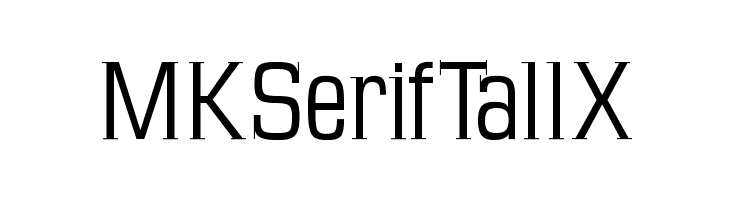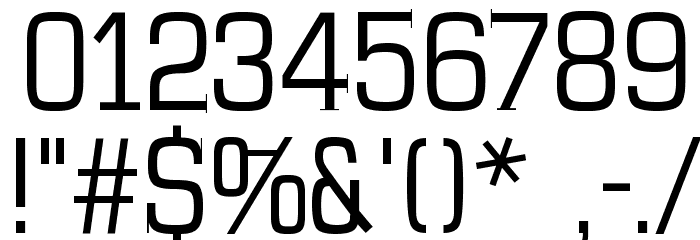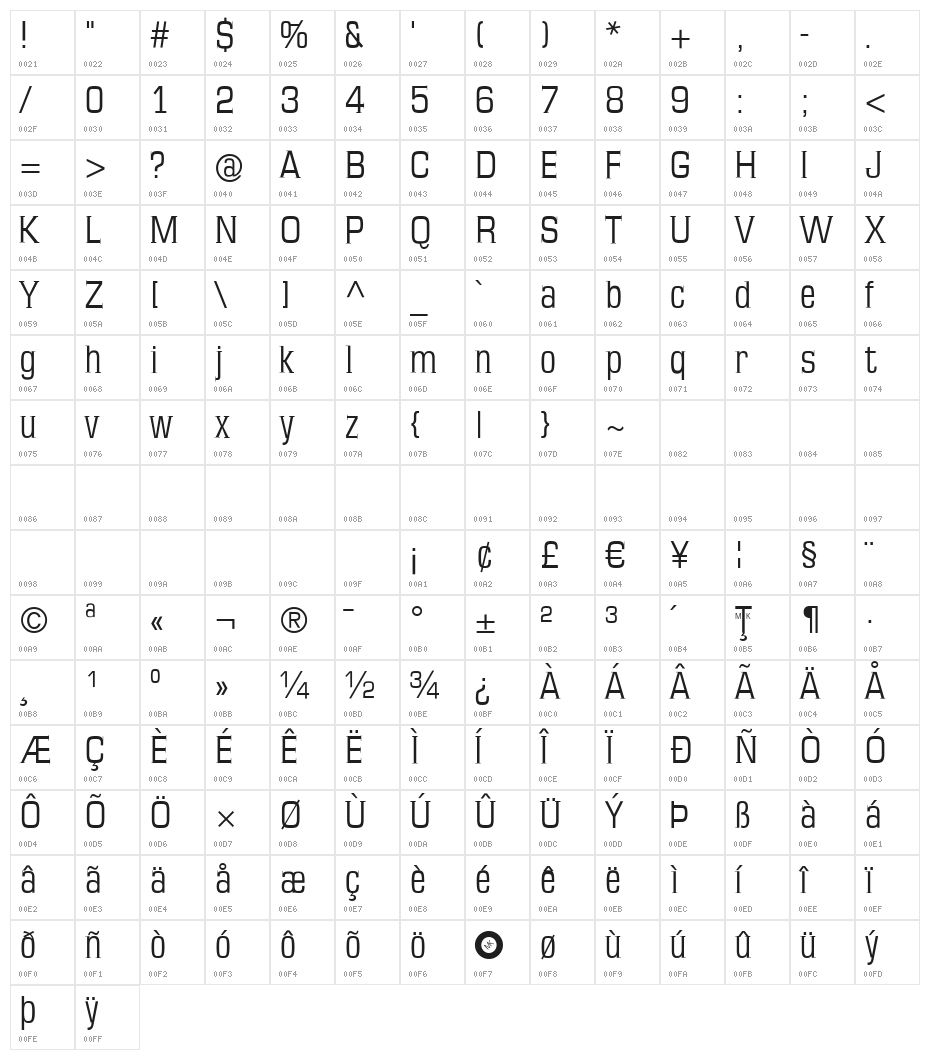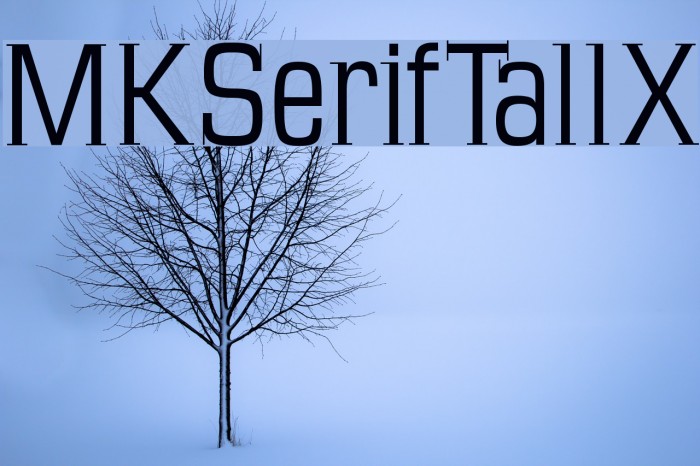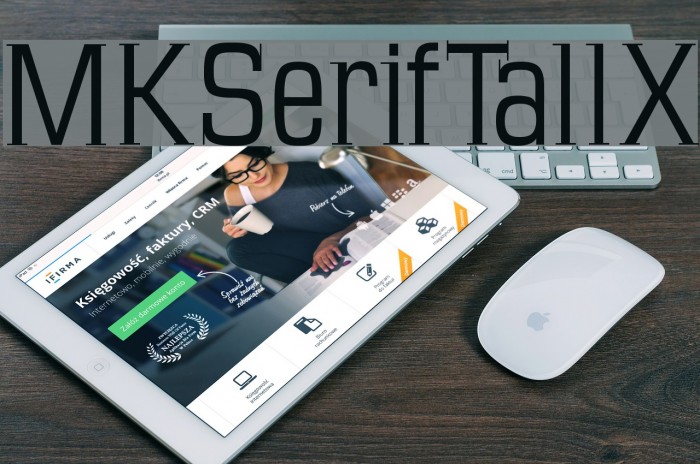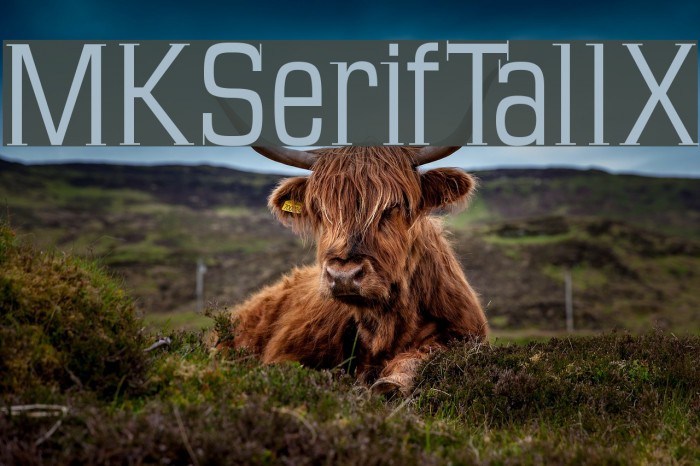
MKSerifTallX Font
MKSerifTallX Description
This font features a tall and elegant serif design, characterized by its clean lines and modern aesthetic. The uppercase letters are bold and commanding, while the lowercase letters maintain a consistent height, offering a balanced and readable appearance. The numerals are clear and distinct, making them suitable for various applications. Special characters are well-defined, adding versatility to the font's use. The overall style is both contemporary and classic, making it adaptable for a wide range of design projects.